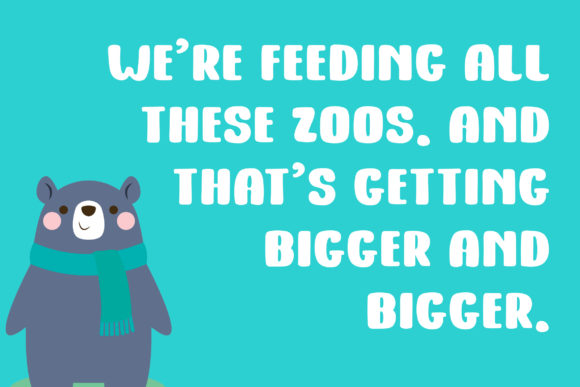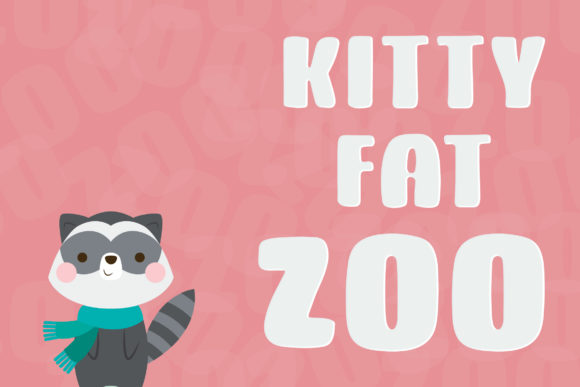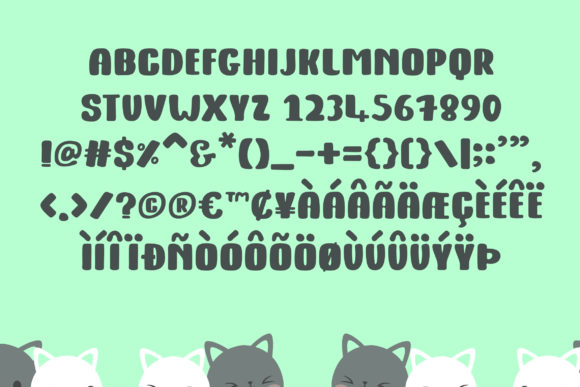
The Purrfect Font for Your Next Project
Do you remember the feeling of excitement when you first discovered your favorite art supplies as a child? Maybe it was a set of vibrant markers, a box of colorful crayons, or a big, fluffy brush pen that seemed to bring your artwork to life. For many designers and artists, those early creative moments sparked a passion that has only grown stronger with time. And now, with the rise of digital design, we have access to a world of fonts that can help us bring our imagination to the screen.
One such font that’s sure to delight is the Kitty Fat Font, a beautiful, handwritten font created with a large brush pen. Its bold and smooth style makes it the perfect fit for kids and cartoon projects, adding a touch of whimsy and playfulness to any design. Whether you’re working on a children’s book, a cartoon, or a marketing campaign, the Kitty Fat Font is sure to bring a smile to your face and a touch of magic to your design.
Kitty Fat Font Key Features
- Font Family: Kitty Fat Font is a unique, hand-drawn font designed for creative and playful purposes.
- Font Size: Kitty Fat Font is designed to be used at medium to large font sizes (14-72 points) to showcase its playful characteristics.
- Unique Characteristics: Features exaggerated, rounded shapes and whimsical details, making it perfect for children’s books, greeting cards, and other fun designs.
Kitty Fat Font Review
I’ve had the chance to play around with the Kitty Fat Font, and here are my honest thoughts.
- The unique design of the font is certainly eye-catching and fun. It’s perfect for creating a playful atmosphere in designs.
- The font is highly customizable, allowing designers to adjust the size, color, and spacing to suit their needs.
- The font is well-suited for titles and headings, adding a touch of whimsy to any design.
- The font may not be suitable for large blocks of text, as it can become overwhelming and difficult to read.
- The font’s design may not be ideal for formal or professional designs, where a more traditional font is often preferred.
The Kitty Fat Font is a fun and playful addition to any designer’s toolkit. While it may have some limitations, it’s perfect for creating a lighthearted and whimsical atmosphere in designs. I’d recommend it for designers looking to add a touch of personality to their work.
Tips for Getting the Most Out of Kitty Fat Font
For best results, use Kitty Fat Font for titles or headings, as it is a decorative font.
Avoid using Kitty Fat Font for large blocks of text, as it can be difficult to read.
Kitty Fat Font is perfect for:
Creative projects (e.g. social media posts, flyers, posters)
Children’s book illustrations and design
Alternatives to Kitty Fat Font for Designers
Great Vibes is a playful, handwritten font perfect for adding a touch of whimsy to your designs. It’s ideal for use in headings, titles, and other text elements where you want to convey a sense of fun and approachability. Compared to Kitty Fat Font, Great Vibes has a more relaxed, casual feel, making it a great choice for designs that require a laid-back tone.
Bebas Neue is a modern, sans-serif font with a bold, geometric feel. It’s perfect for use in headings, titles, and other text elements where you want to convey a sense of sophistication and elegance. Compared to Kitty Fat Font, Bebas Neue has a more streamlined, minimalist look, making it a great choice for designs that require a clean and modern aesthetic.
Playfair Display is a luxurious, elegant font perfect for adding a touch of sophistication to your designs. It’s ideal for use in headings, titles, and other text elements where you want to convey a sense of luxury and refinement. Compared to Kitty Fat Font, Playfair Display has a more formal, traditional feel, making it a great choice for designs that require a high-end aesthetic.